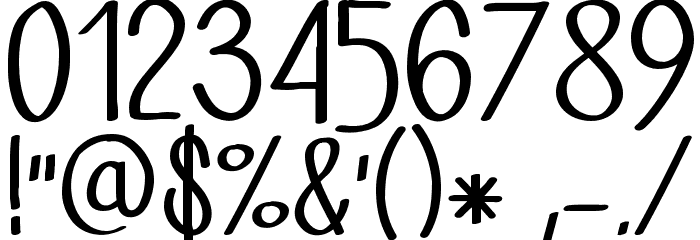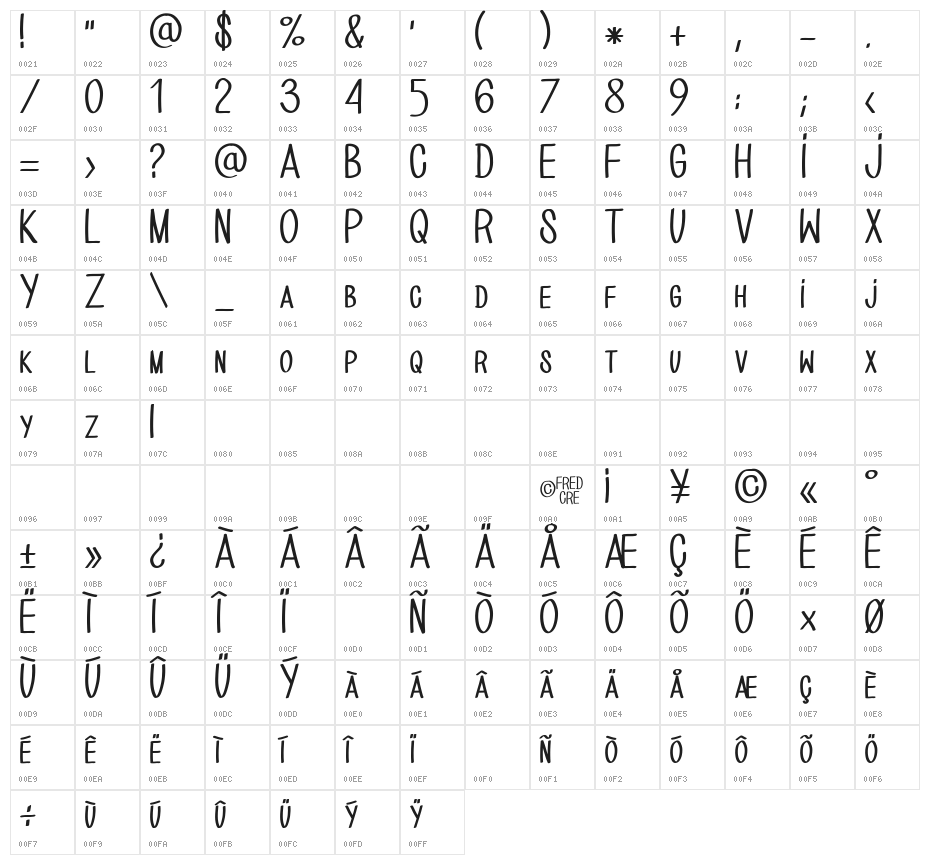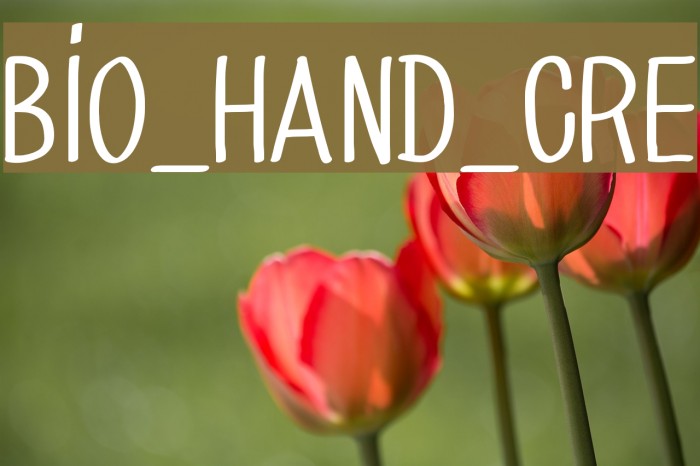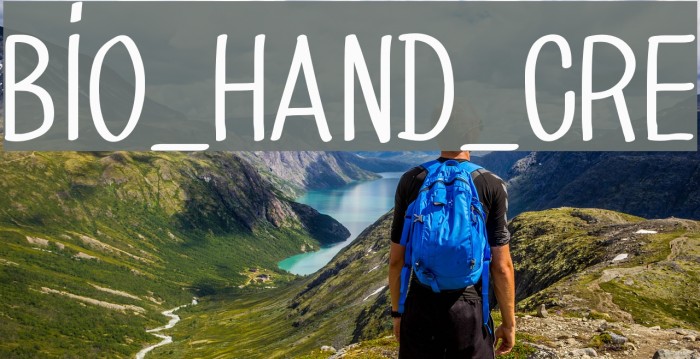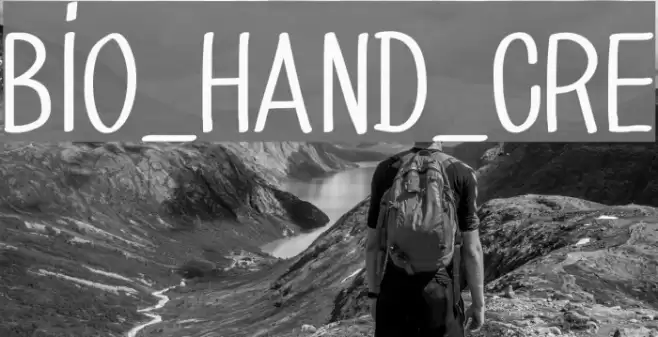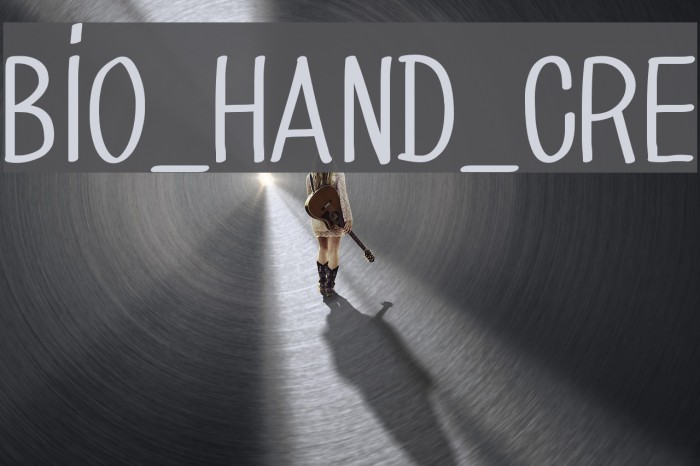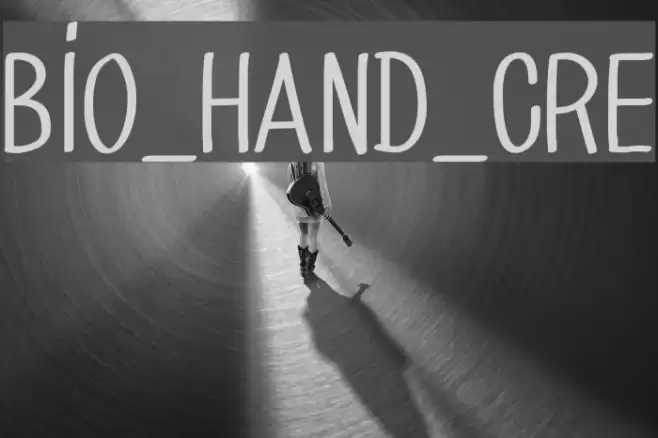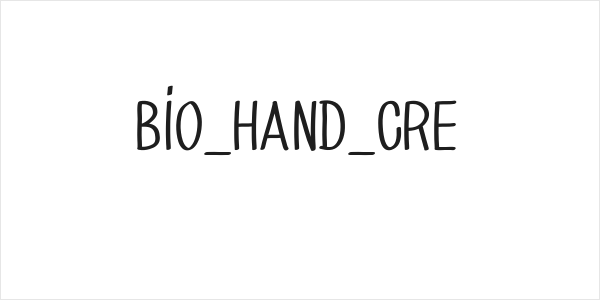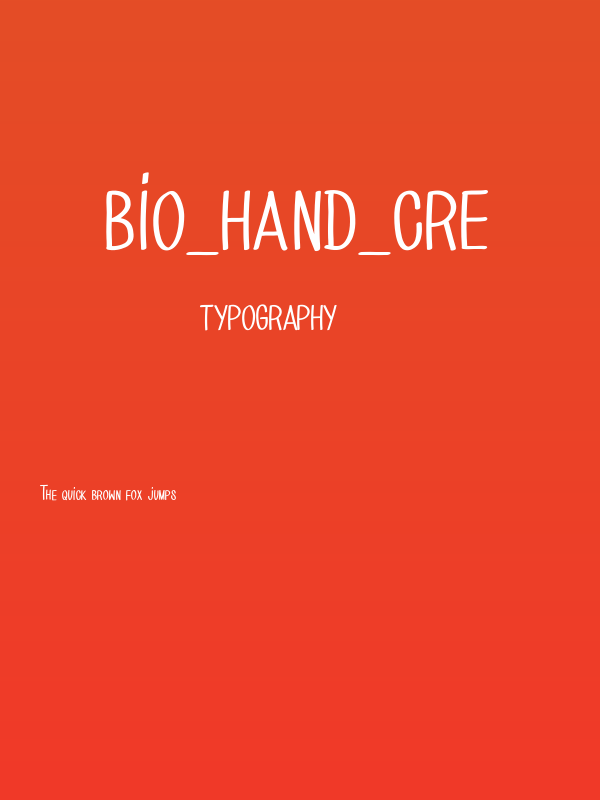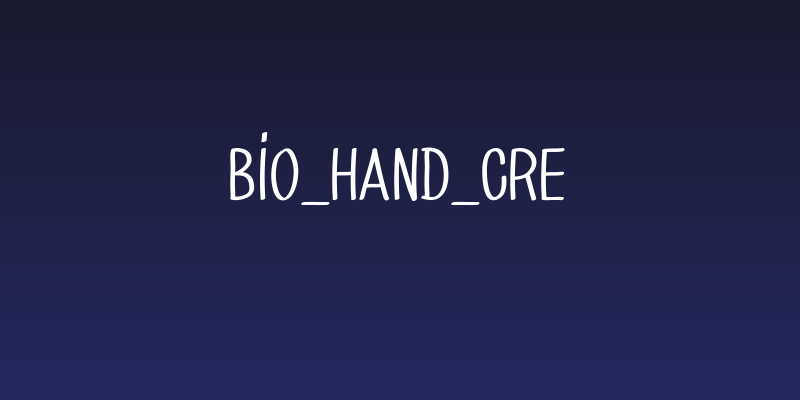
BIO_HAND_CRE Font
BIO_HAND_CRE Description
This font features a playful and casual handwritten style, characterized by its tall, narrow letters with a slightly irregular baseline that adds a touch of whimsy. The strokes are consistent in width, giving it a clean and modern look while maintaining a friendly and approachable feel. The uppercase and lowercase letters are distinct, with the uppercase being slightly more elongated. Numbers and special characters are designed to match the overall aesthetic, ensuring a cohesive appearance across all text. This font is versatile, suitable for a variety of creative projects that require a personal touch.
| Use Case | Headlines, Invitations, Posters |
| Proposed Projects | Ideal for greeting cards, invitations, posters, and branding materials that require a personal and friendly touch. |